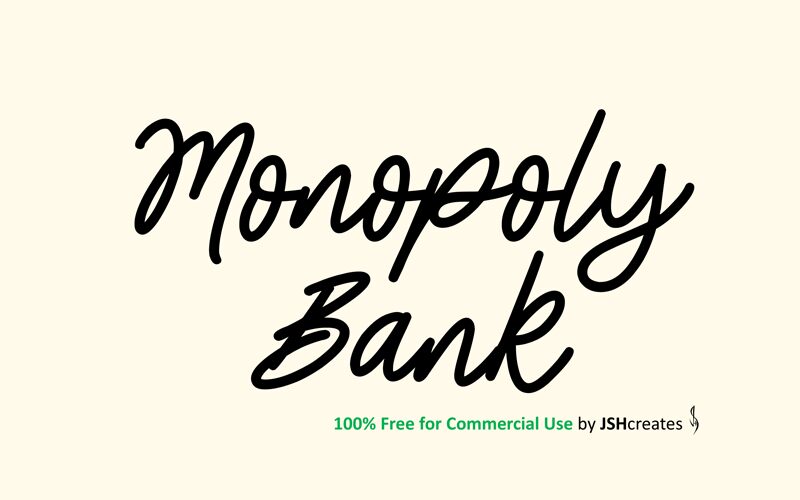
Monopoly Bank font by JSH creates a free handwritten font that combines creativity and authenticity in one set of characters. The font contains carefree characters that lean towards a wider design without any strict restraints to each character’s size. As if a designer was experimenting on paper, this project comes with original strokes that differ in each letter for a variety of options when typing.
The straightforward design of this free font makes it suitable for friendly projects like invitations, greeting cards, casual branding projects, children’s books, comics, etc. Use it also for titles and headings for a whimsical effect or include it in playful online titles or icons.